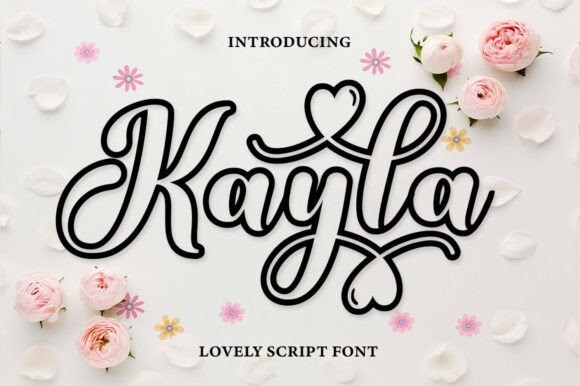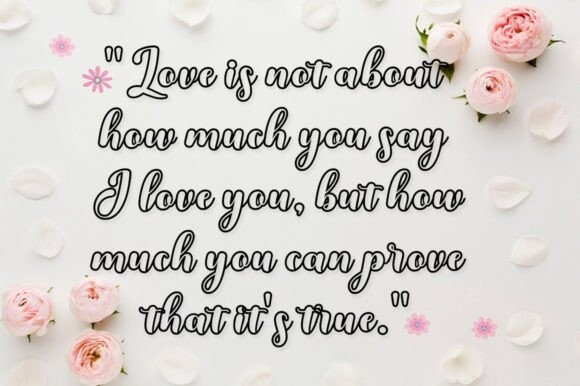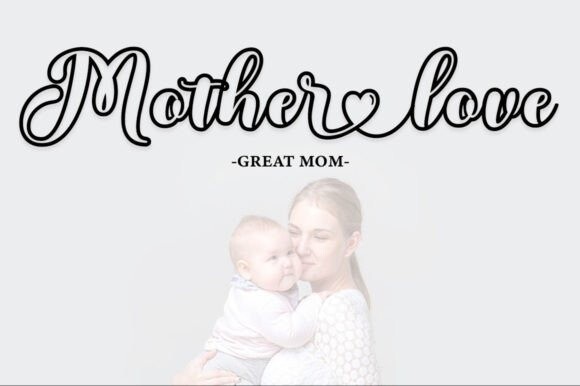
Kayla Outline Font
Kayla Outline is a cute, versatile, and flexible handwritten font. Warm, romantic, and jovial, this font will turn any of your project ideas into real works of art. This font is PUA coded which means you can access all the glyphs and swashes easily, this font is complete with language support!